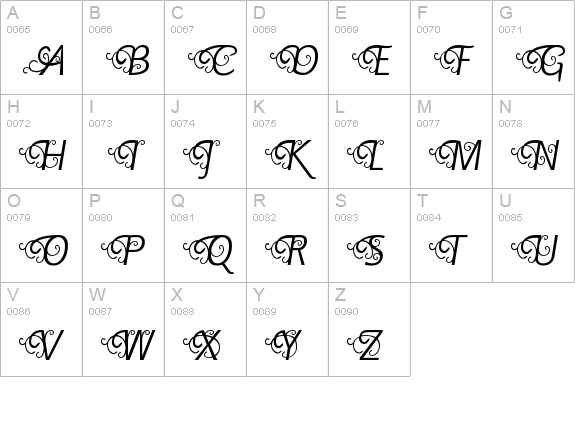
Yellande Font Details
Yellande is a stunning and versatile typeface that exudes elegance and sophistication. With its unique blend of modern and classic elements, Yellande is the perfect choice for a wide range of design projects, from branding to editorial design. This font features clean lines and graceful curves that give it a timeless appeal, making it suitable for both headlines and body text. Yellande comes in a variety of weights and styles, allowing you to create beautiful typography with ease. Best of all, Yellande is available for free download at FontsMarket.com. Whether you're a seasoned graphic designer or just starting out, this font is sure to elevate your designs and make a lasting impression. Download Yellande today and bring a touch of sophistication to your next project.